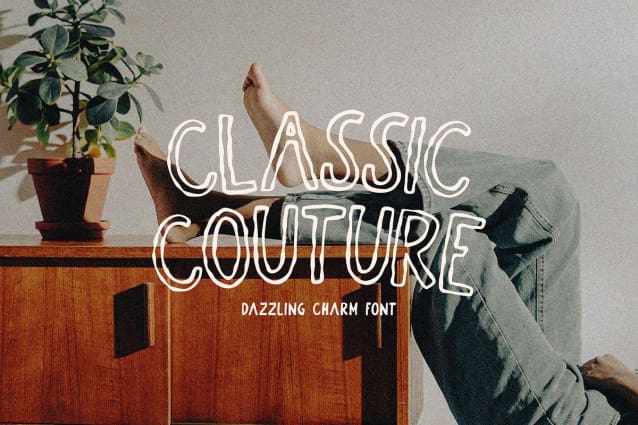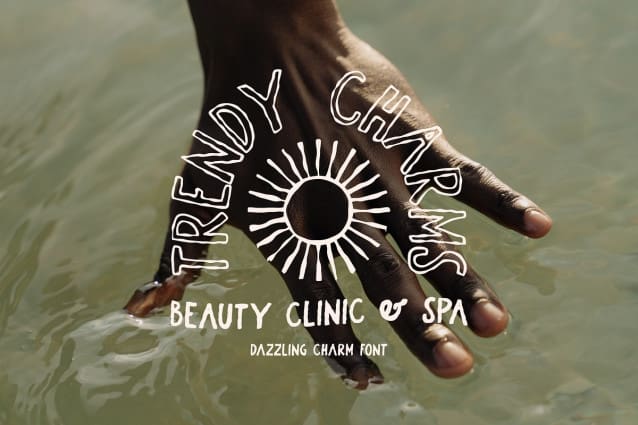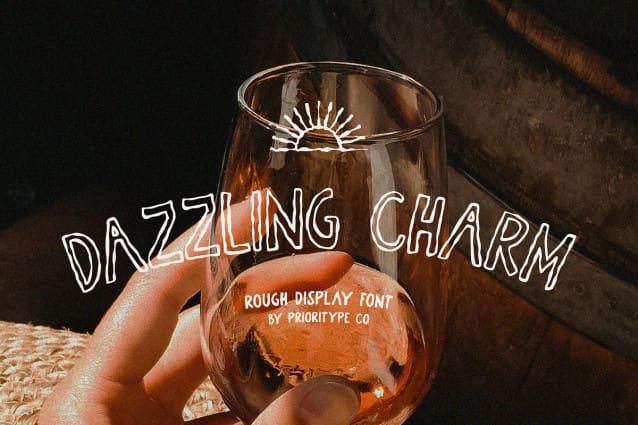
Dazzling Charm Font
Dazzling Charm Font, a hand-drawn font exuding a rough and edgy style. This font offers two enticing versions: “Regular” for a smooth yet captivating look and “Outline” for a distinctive and bold appearance.
Perfectly suited for quotes, branding, logos, and social media posts, “Dazzling Charm” adds a unique touch to every design, ensuring it stands out and makes a lasting impact. Illuminate your content with the enchanting allure of “DazzlingCharm” font, and let your creativity shine in every project.